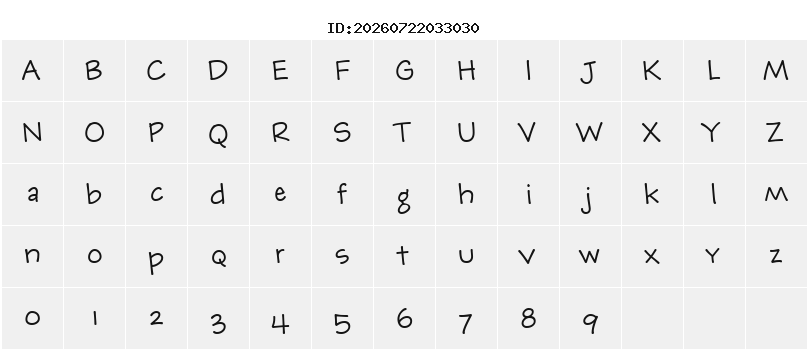
FM Rustling Branches Moon BT Preview
About FM Rustling Branches Moon BT.ttf
FM Rustling Branches Moon BT.ttf is a modern, elegant sans-serif font designed for ultimate readability and visual harmony. Perfect for branding, headlines, web design, and print materials.